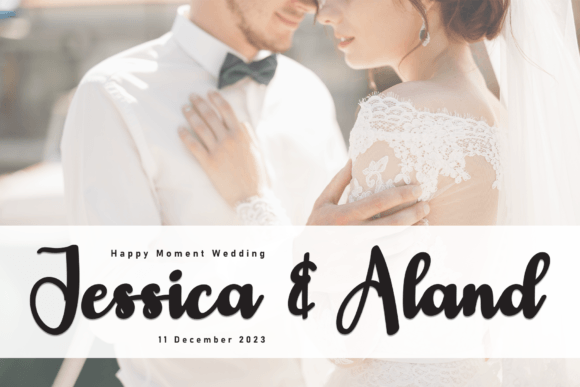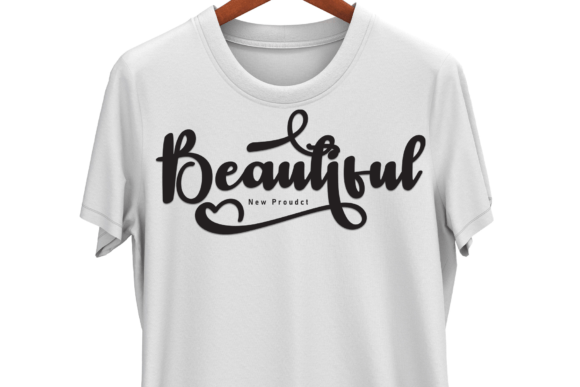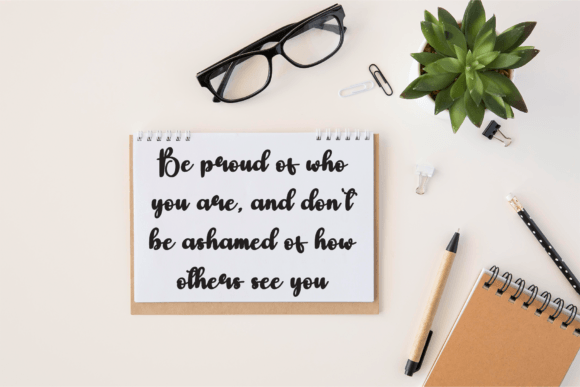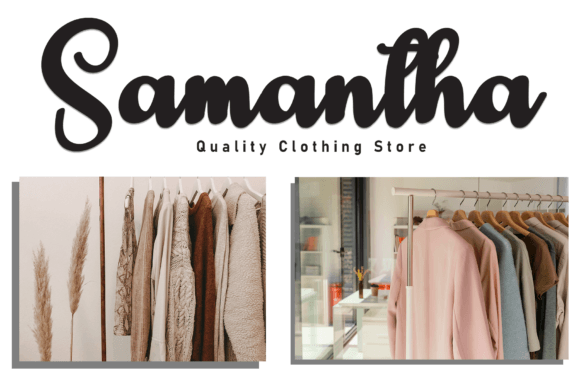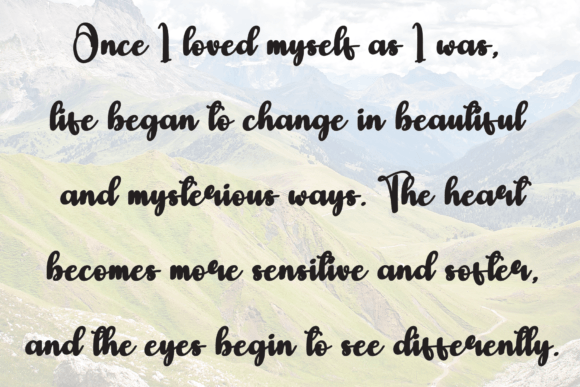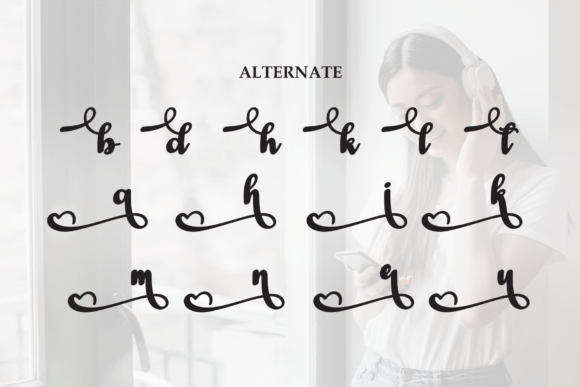
Harken Font: The Sweet and Friendly Handwritten Display Font
Are you looking for a font that can add a touch of sweetness and friendliness to your designs? Look no further than Harken Font! This beautiful handwritten display font is perfect for creating wedding invitations, cards, and other designs that require a fun and playful touch.
What is Harken Font?
Harken Font is a modern handwritten display font that is designed to bring a sense of joy and whimsy to your designs. With its sweet and friendly appearance, this font is ideal for a wide range of projects, from wedding invitations and cards to posters, flyers, and more.
Characteristics of Harken Font
So, what makes Harken Font so special? Here are some of its key characteristics:
- Cute and Fun: Harken Font is a playful and fun font that is sure to add a touch of personality to your designs.
- Handwritten: This font has a beautiful handwritten appearance that gives it a personal and unique touch.
- Sweet and Friendly: Harken Font has a sweet and friendly appearance that makes it perfect for designs that require a warm and inviting feel.
- Display Font: This font is designed to be used as a display font, making it perfect for headlines, titles, and other prominent text elements.
Uses for Harken Font
So, what can you use Harken Font for? Here are some ideas to get you started:
- Wedding Invitations: Harken Font is perfect for creating beautiful and unique wedding invitations that will set the tone for your special day.
- Cards: Whether you’re creating birthday cards, thank you cards, or any other type of card, Harken Font is a great choice.
- Posters and Flyers: This font is also great for creating eye-catching posters and flyers that require a fun and playful touch.
- Social Media Graphics: Harken Font can be used to create engaging social media graphics that will help you stand out from the crowd.
Why Choose Harken Font?
So, why should you choose Harken Font for your next project? Here are some reasons to consider:
- Unique and Personal: Harken Font has a unique and personal appearance that will help your designs stand out from the crowd.
- Easy to Read: Despite its playful appearance, Harken Font is easy to read and understand, making it perfect for a wide range of projects.
- Versatile: This font can be used for a wide range of projects, from wedding invitations to posters and flyers.
- High-Quality: Harken Font is a high-quality font that is designed to deliver exceptional results.
Tips for Using Harken Font
Here are some tips for using Harken Font effectively:
- Use it as a Display Font: Harken Font is designed to be used as a display font, so use it for headlines, titles, and other prominent text elements.
- Pair it with Other Fonts: Consider pairing Harken Font with other fonts to create a unique and interesting contrast.
- Experiment with Colors: Harken Font looks great in a wide range of colors, so don’t be afraid to experiment and find the perfect color for your design.
In conclusion, Harken Font is a sweet and friendly handwritten display font that is perfect for adding a touch of fun and personality to your designs. With its unique and personal appearance, ease of use, and versatility, this font is a great choice for designers and crafters alike. Whether you’re creating wedding invitations, cards, posters, or any other type of design, Harken Font is sure to deliver exceptional results.